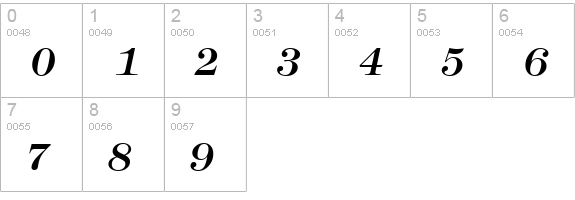
Montpellier-Italic is a distinctive, italic variant in the Montpellier typeface family \xE2\x80\x94 well suited to design and typography projects.
Introducing Montpellier-Italic, a sleek and elegant font perfect for adding a touch of sophistication to your designs. With its stylish italicized form, Montpellier-Italic exudes a sense of modernity and grace. The fluid lines and delicate curves of this font make it ideal for a wide range of projects, from branding to editorial design. What sets Montpellier-Italic apart is not only its visual appeal but also its accessibility. This exquisite font is available for free download at FontsMarket.com, allowing designers and creatives to easily incorporate it into their work without any cost. With Montpellier-Italic, you can elevate your projects with a touch of class and finesse, all while enjoying the convenience of a free and easily accessible font.